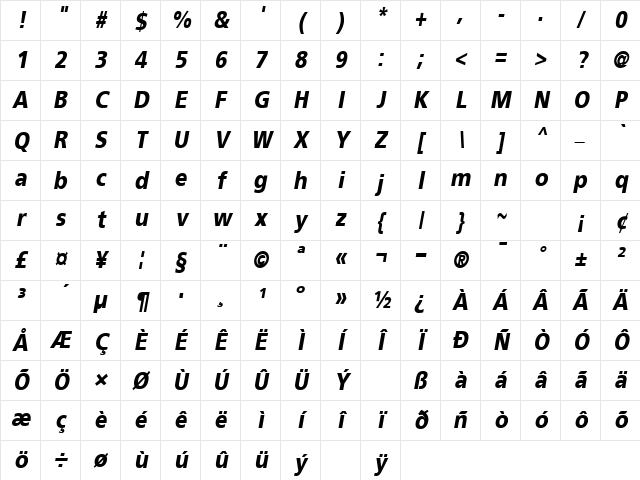
VirtualBlack Oblique
Design Context for VirtualBlack
VirtualBlack is a composed and adaptable typeface that performs quietly and consistently across a wide range of design contexts. The slanted form adds forward momentum and visual energy.
Pro Tip: Use VirtualBlack for emphasis, pull quotes, and subheadings where its slanted energy can add rhythm to the layout.